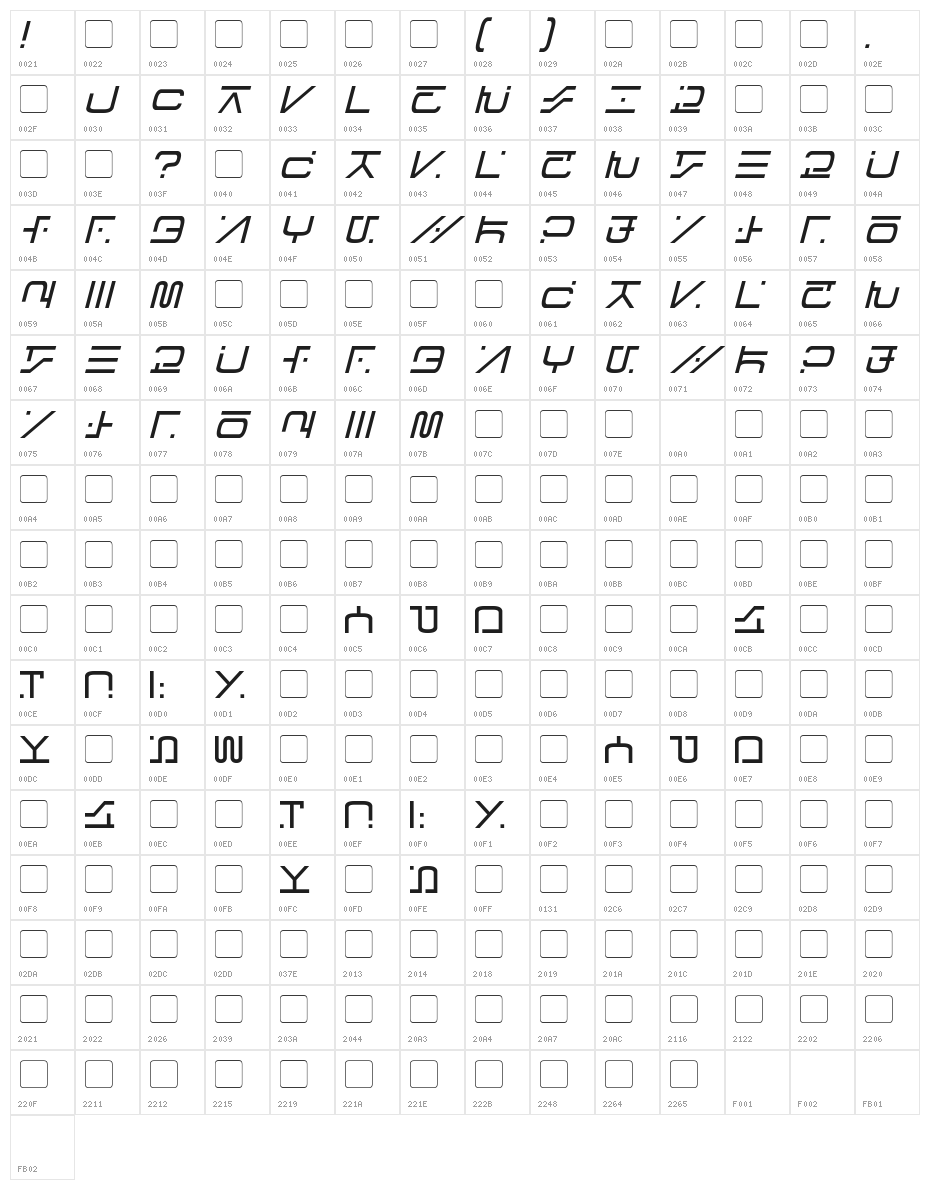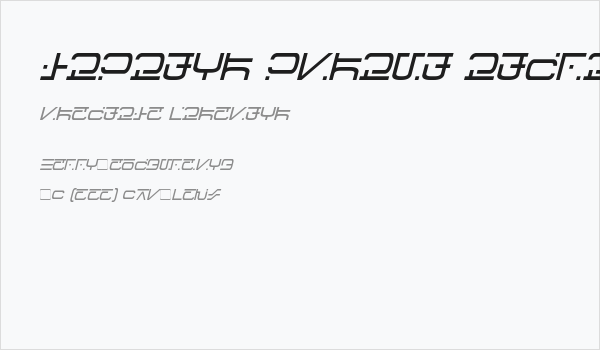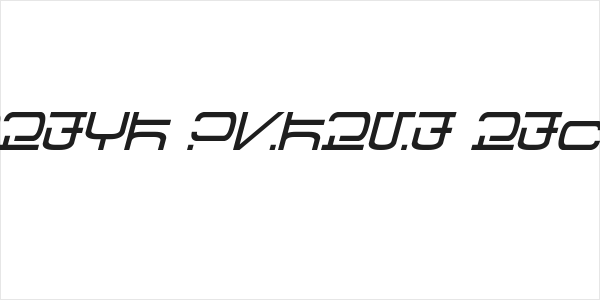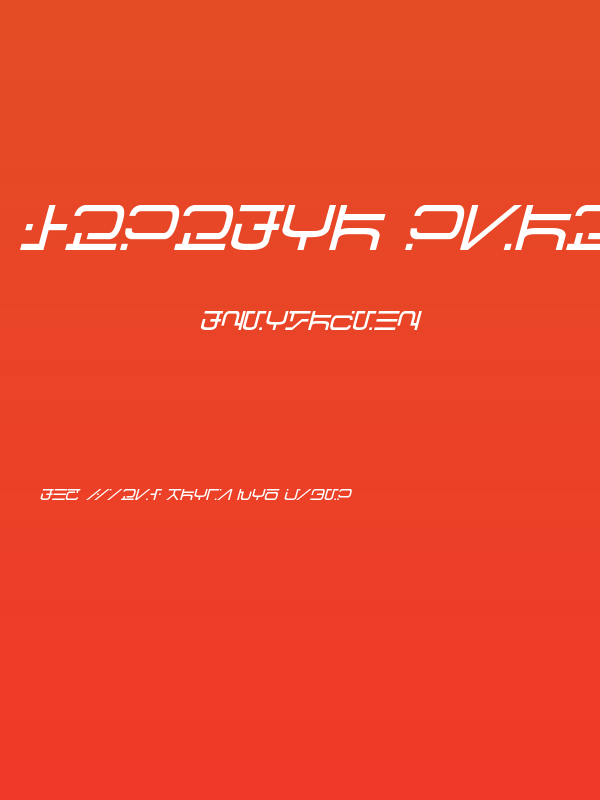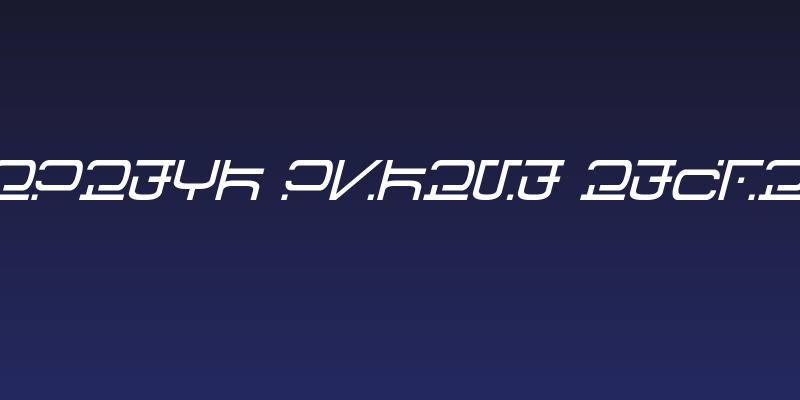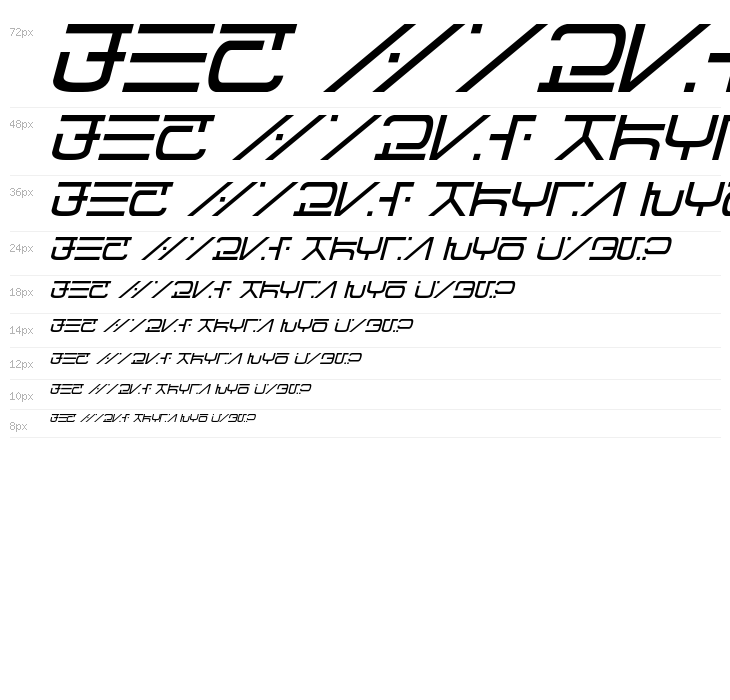
Visitor Script Italic Font
Visitor Script Italic Description
This font features a futuristic and geometric design with a distinct italic slant, giving it a dynamic and forward-moving appearance. The characters are composed of angular lines and sharp edges, creating a sense of speed and modernity. The uppercase and lowercase letters maintain a consistent style, with unique cutouts and strokes that add to its digital aesthetic. The numerals and special characters follow the same design principles, ensuring uniformity across all glyphs. This font is well-suited for projects that require a tech-savvy or avant-garde look, making it ideal for digital interfaces, gaming titles, and sci-fi themed designs.